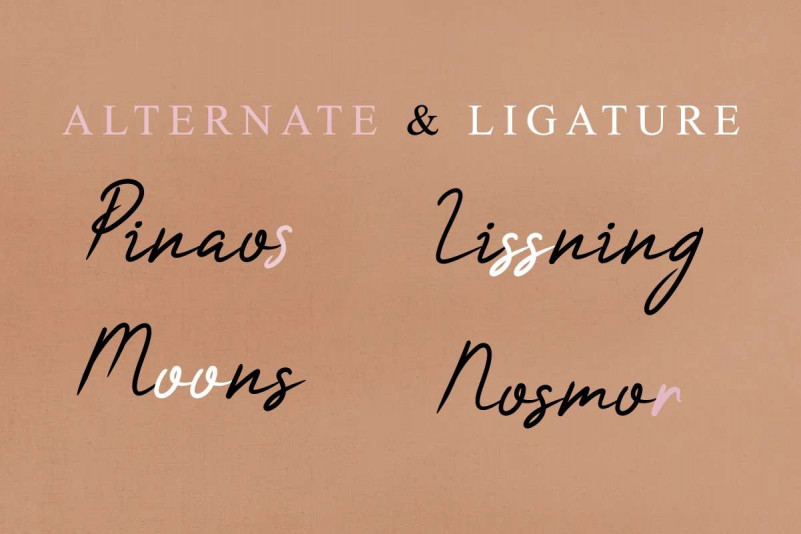
Callinda Handwritten Font
Callinda is an elegant script font, that features a very delicate and classy look. Not too thin and not too thick, balanced and varied, this font was designed to enhance the beauty of your projects.